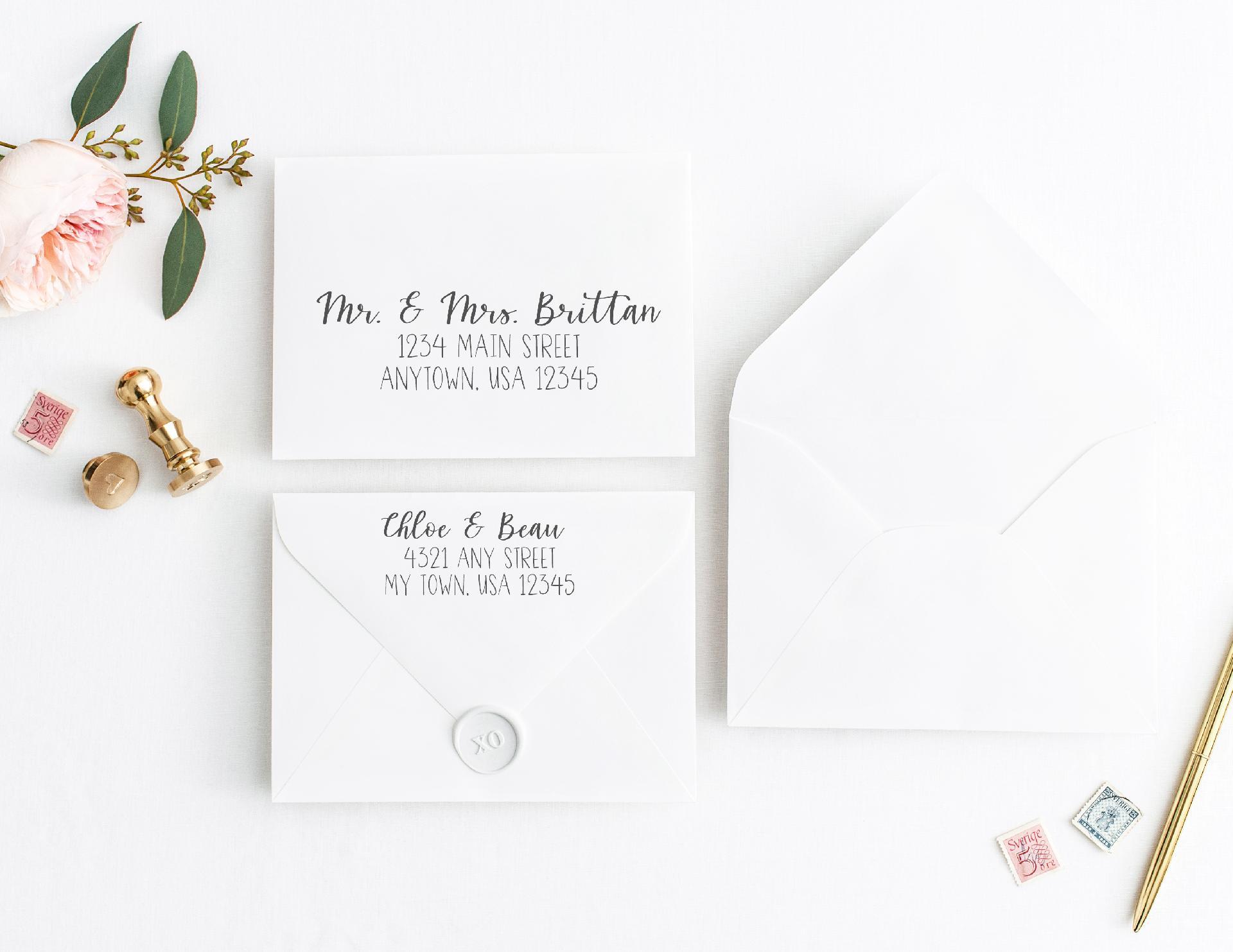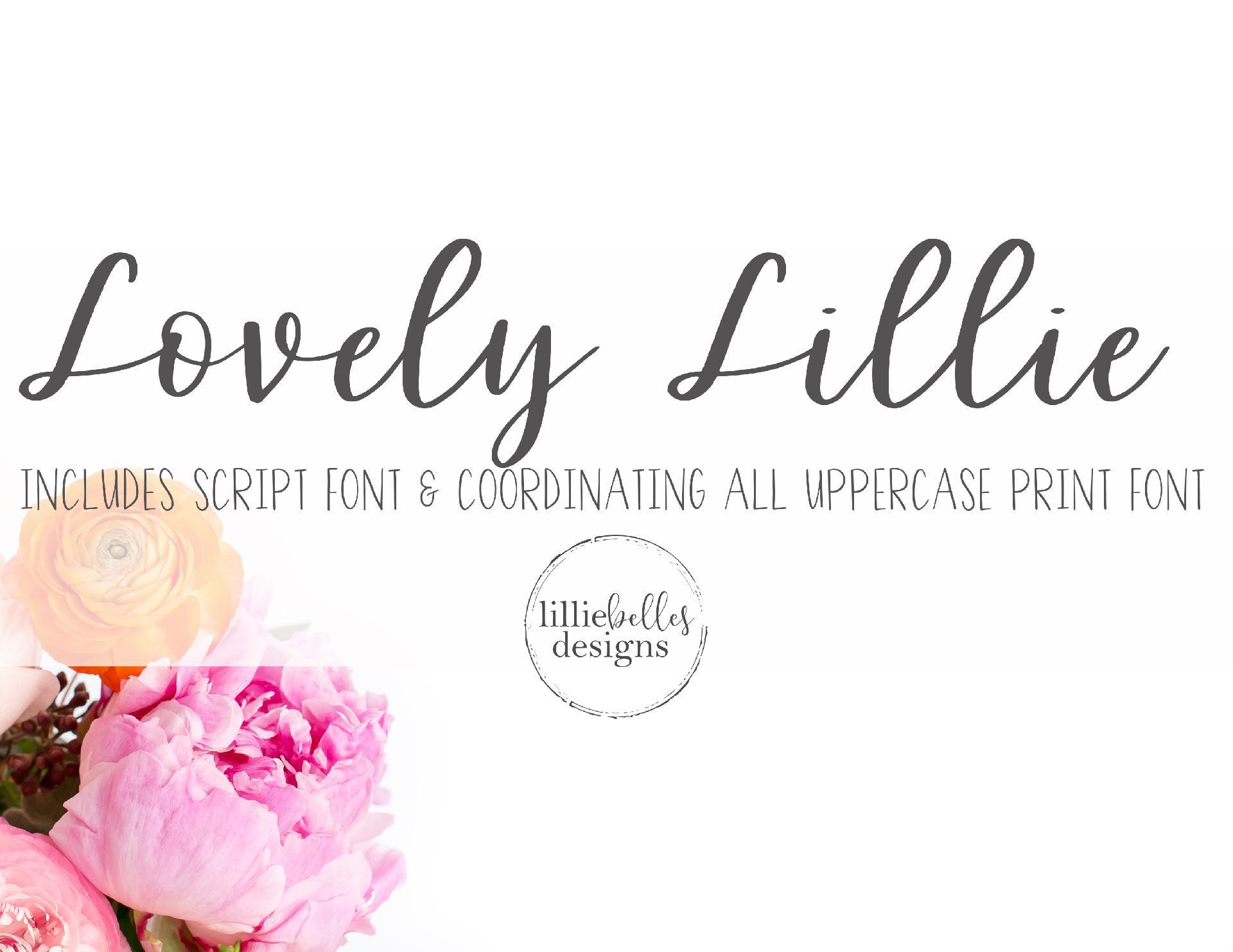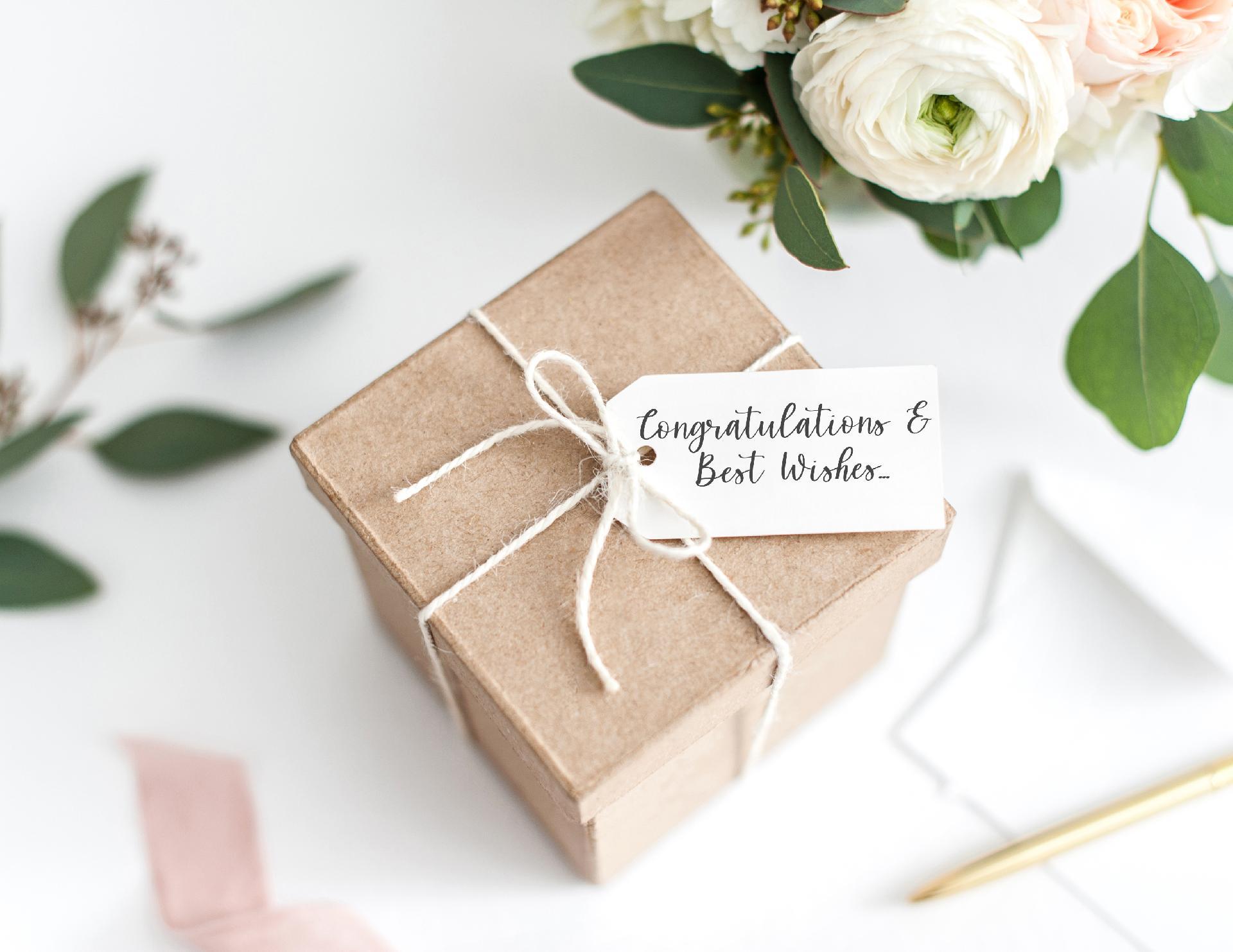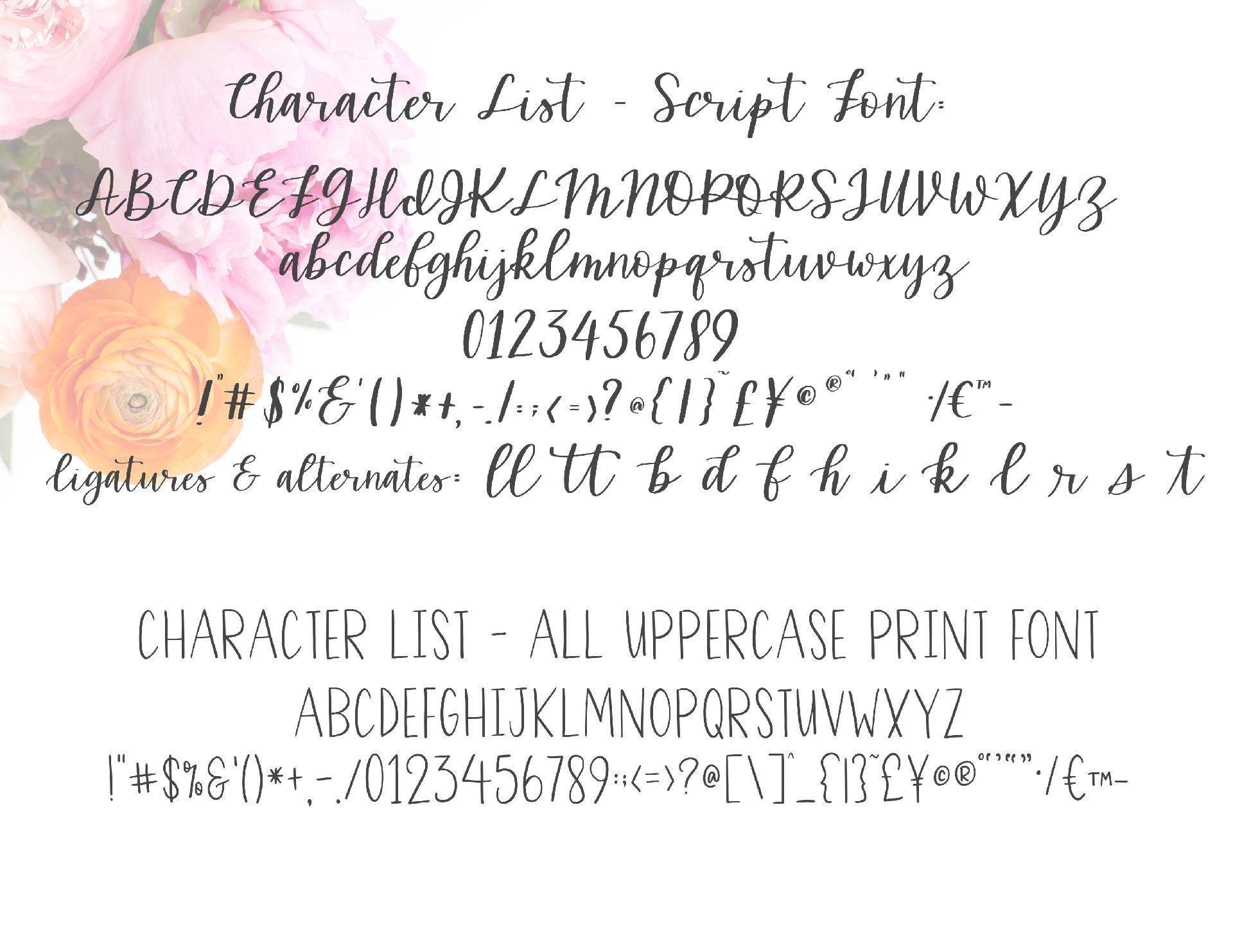
About Lovely Lillie Font Duo
Lovely Lillie – A handwritten font duo. Lovely Lillie is perfect for invitations, wedding decor, signs, and wall decor. This font duo makes pairing fonts a breeze! Please note that Lovely Lillie does have some texture & is not perfectly smooth. Remember to install both fonts. Lovely Lillie Script font (uppercase and lowercase) Lovely Lillie Print font (uppercase only, so make sure you put on your ‘caps lock’) Numbers, punctuation, and symbols Standard ligatures and special beginning characters .otf and .ttf files PUA encoded making this a cut-friendly font Enjoy!